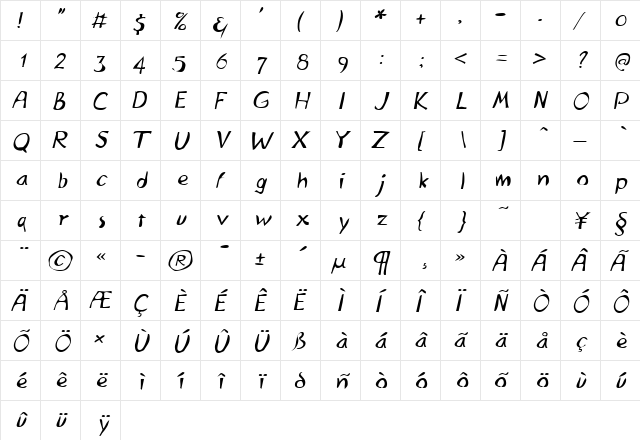
Stonehenge Italic
Design Context for Stonehenge Typeface
Stonehenge is a composed and adaptable typeface that performs quietly and consistently across a wide range of design contexts. Its italic angle brings a sense of urgency and motion to the letterforms.
Pro Tip: Use Stonehenge for emphasis, pull quotes, and subheadings where its slanted energy can add rhythm to the layout.